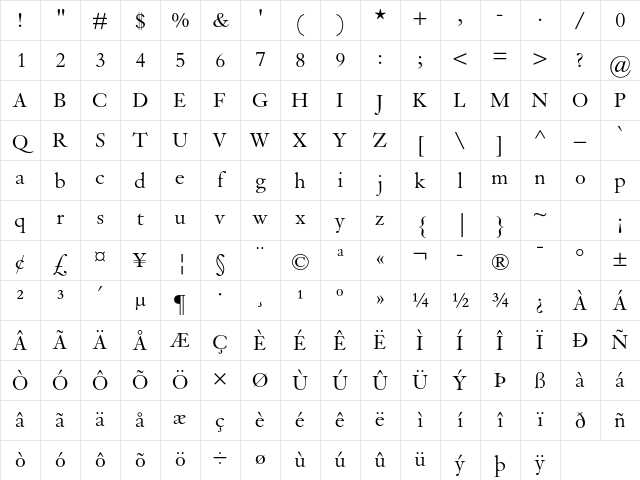
Van Dijck MT Std Regular
Design Context for Van Dijck MT Std
Van Dijck MT Std is a composed and adaptable typeface that performs quietly and consistently across a wide range of design contexts.